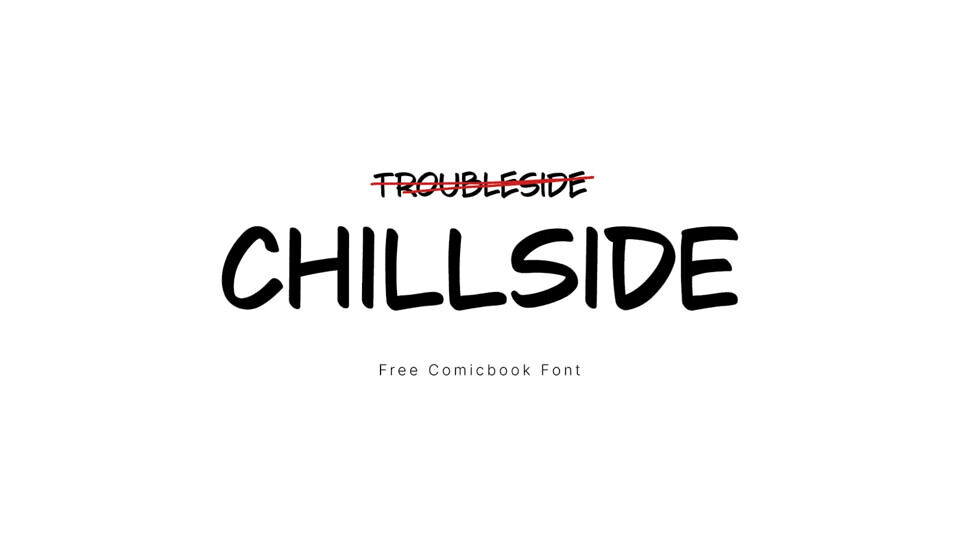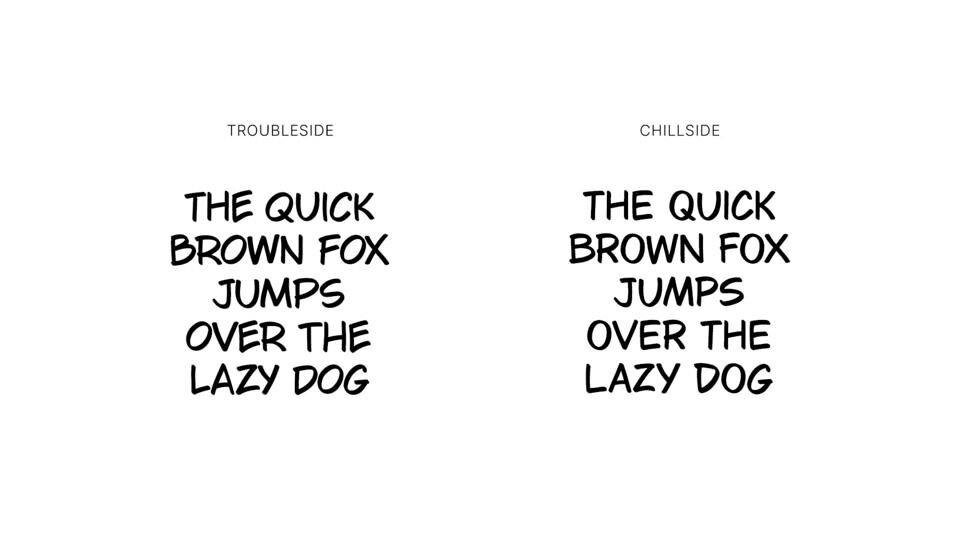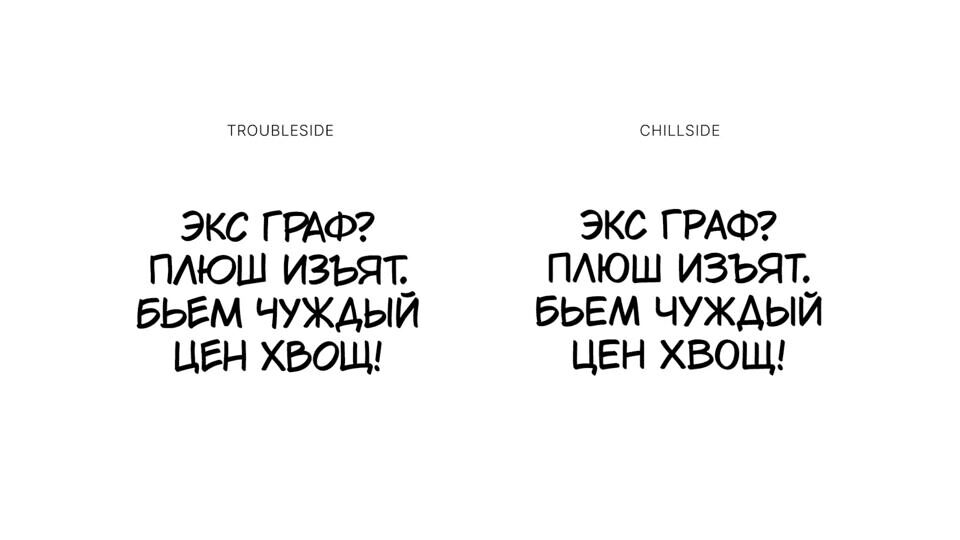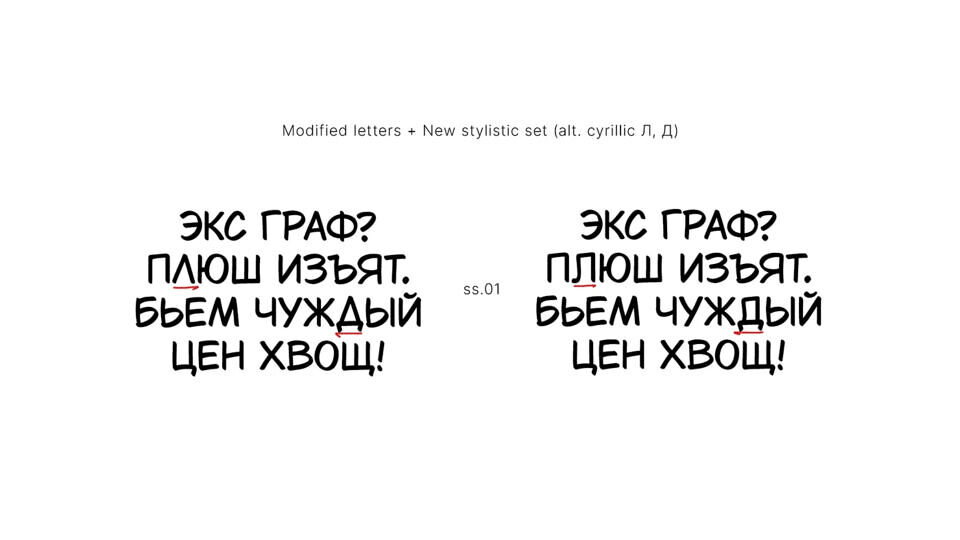
Chillside is a playful, hand-drawn comic font with a relaxed and energetic vibe. Designed to bring a fun, casual touch to your creative projects, it’s perfect for posters, comics, games, and playful branding. With bold lines and expressive characters, Chillside adds charm and personality to any layout.
Free for commercial use, Chillside font is a modification of TroubleSide font.